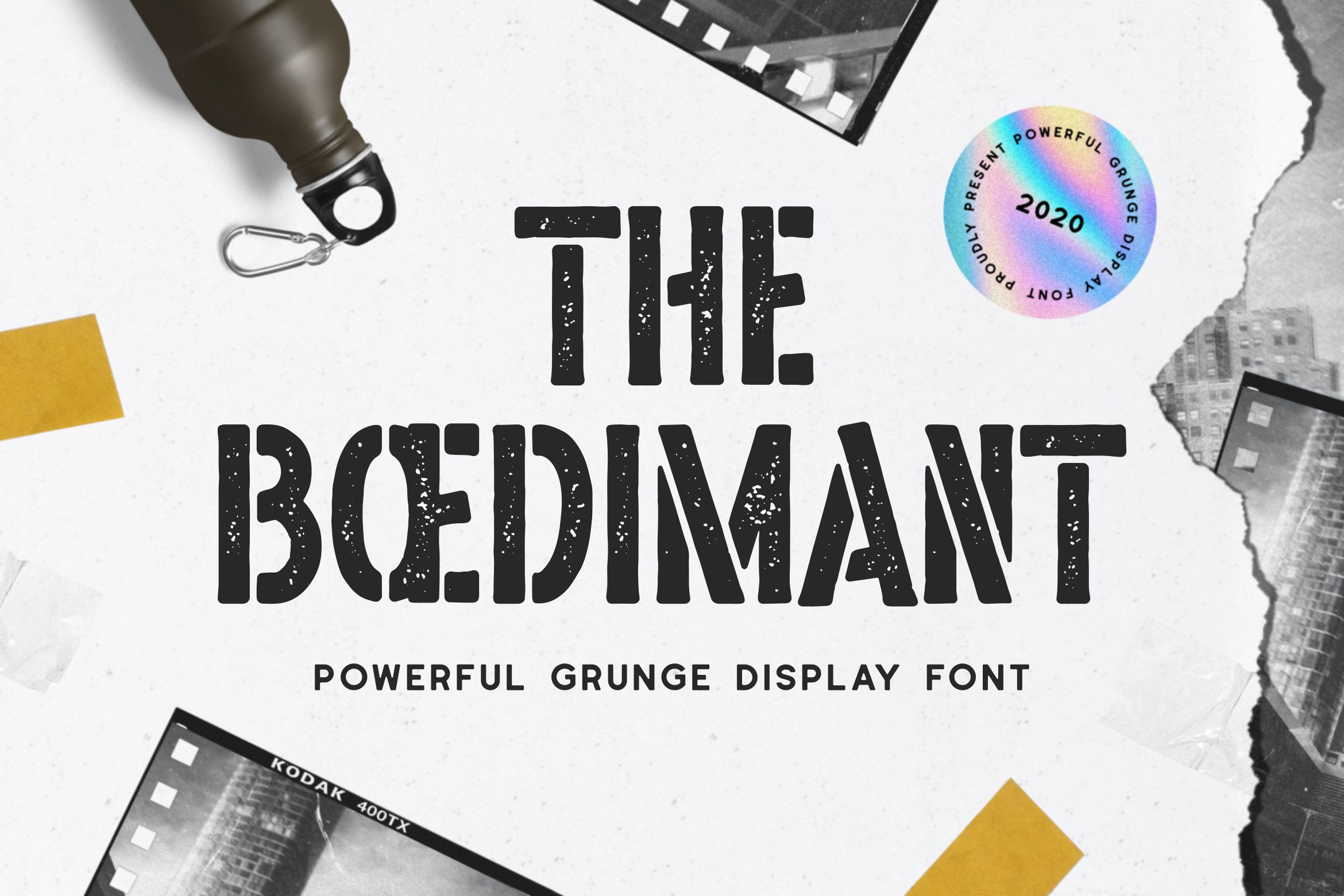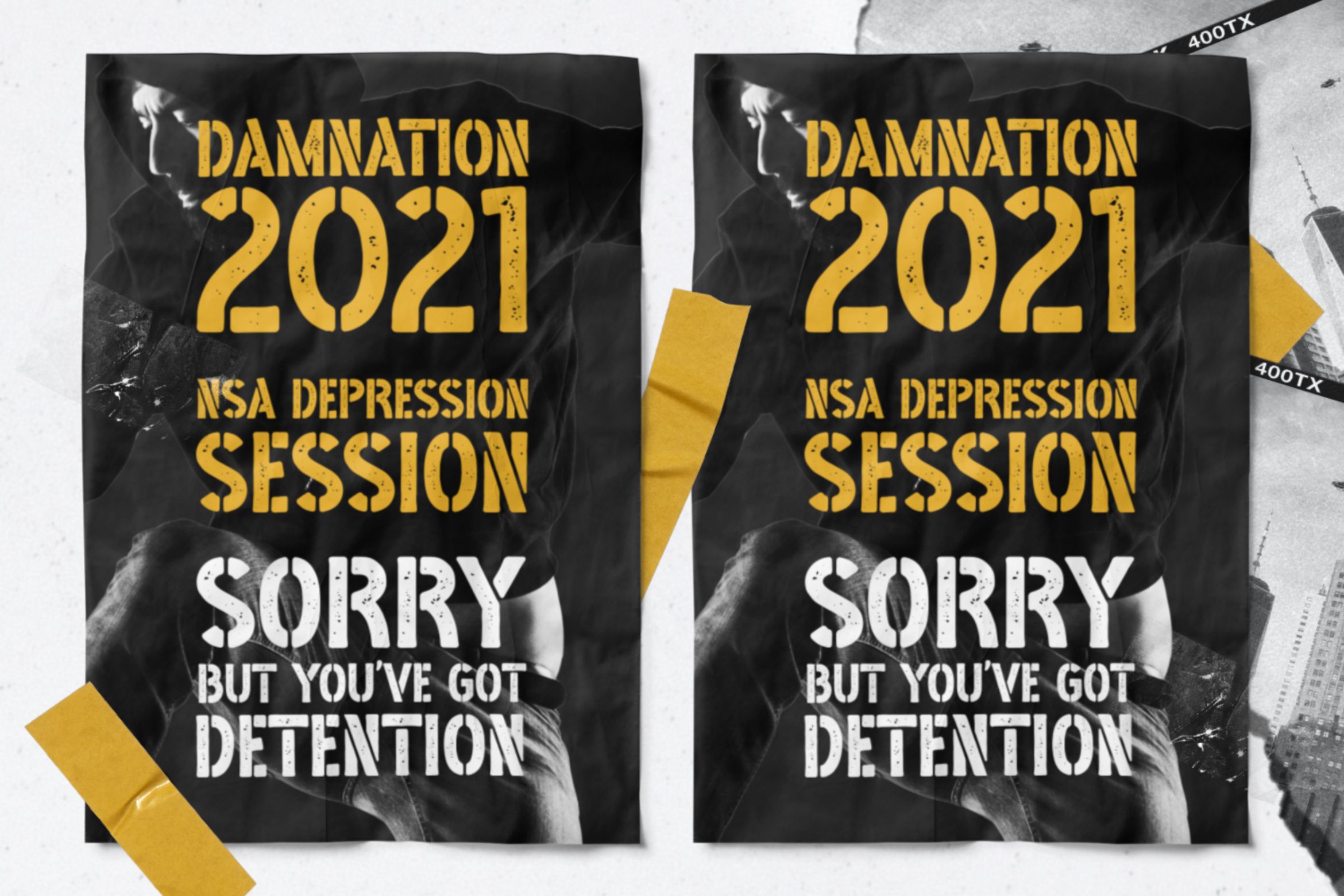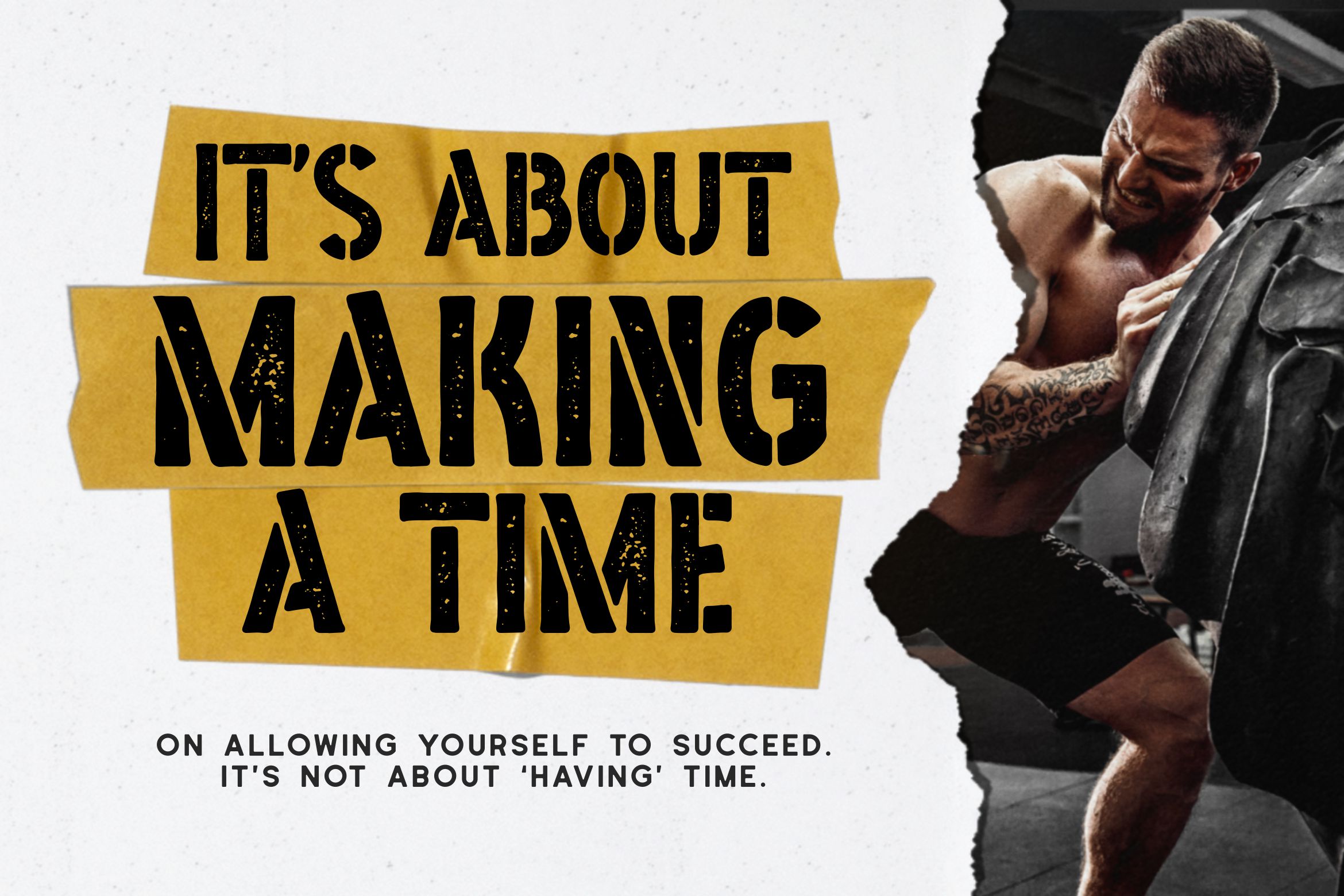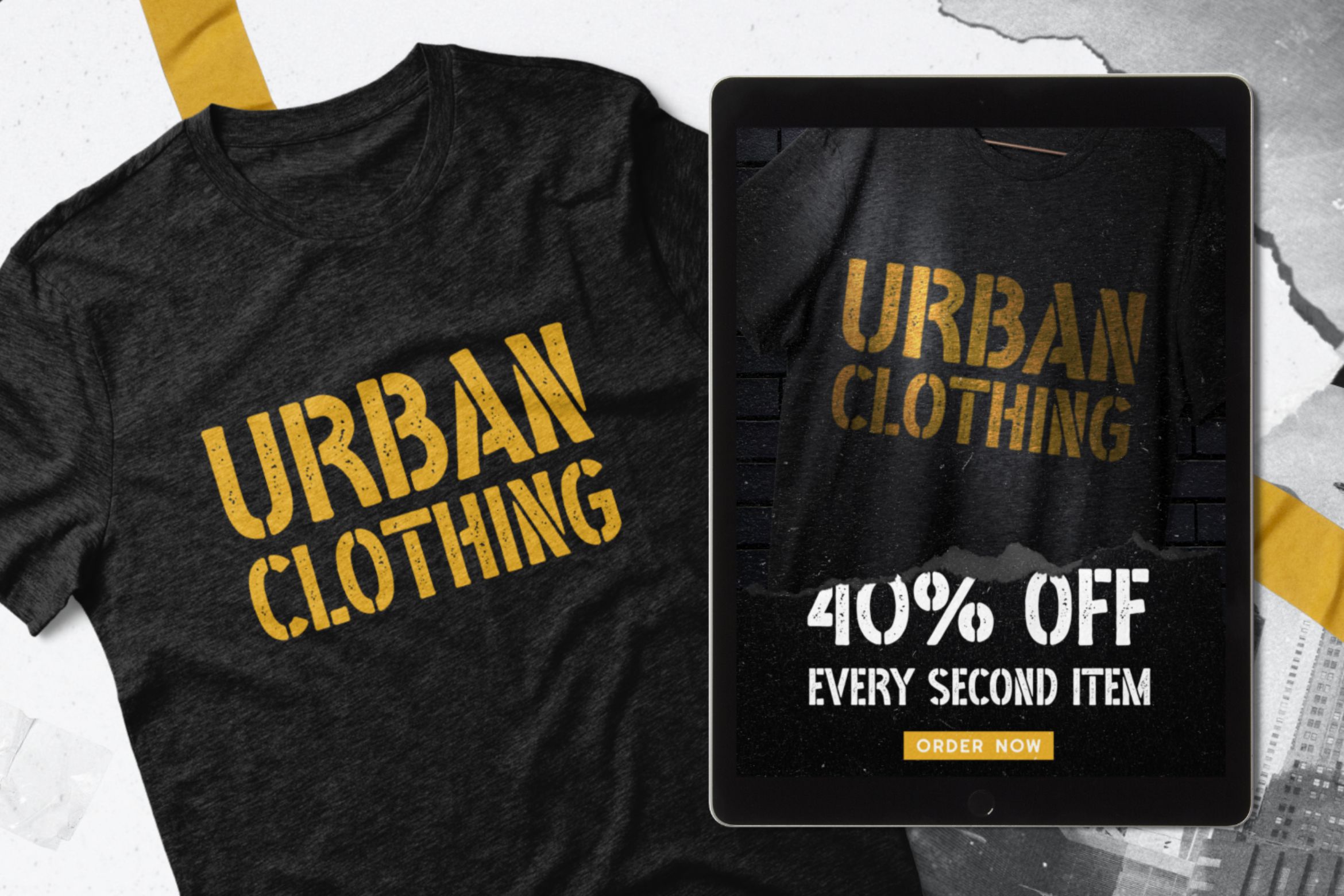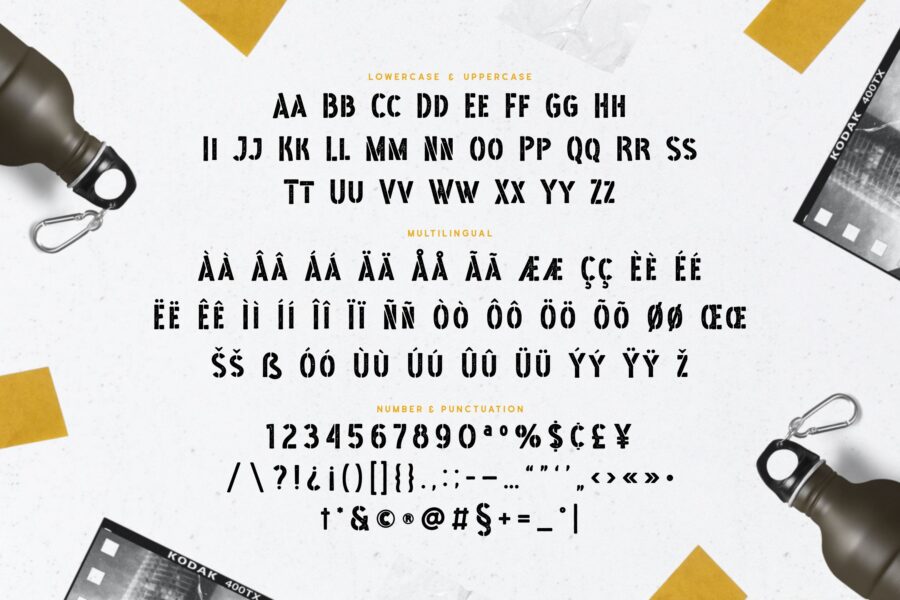
The Boedimant is a powerful grunge display font with a bold stencil-inspired design and distressed texture, giving it a rugged, authentic character. Each letter features a worn-out effect that adds a strong urban edge, making it perfect for headlines, apparel designs, posters, and branding projects that demand attention. Whether you’re crafting a streetwear label or a motivational gym quote, this font carries the energy and attitude to stand out.
Designed with multilingual support, The Boedimant also includes a full set of uppercase characters, numerals, punctuation, and accented letters. Its bold appearance and rough detailing make it ideal for masculine or rebellious visual themes, giving your text an industrial and impactful presence across digital or print media.
Boedimant